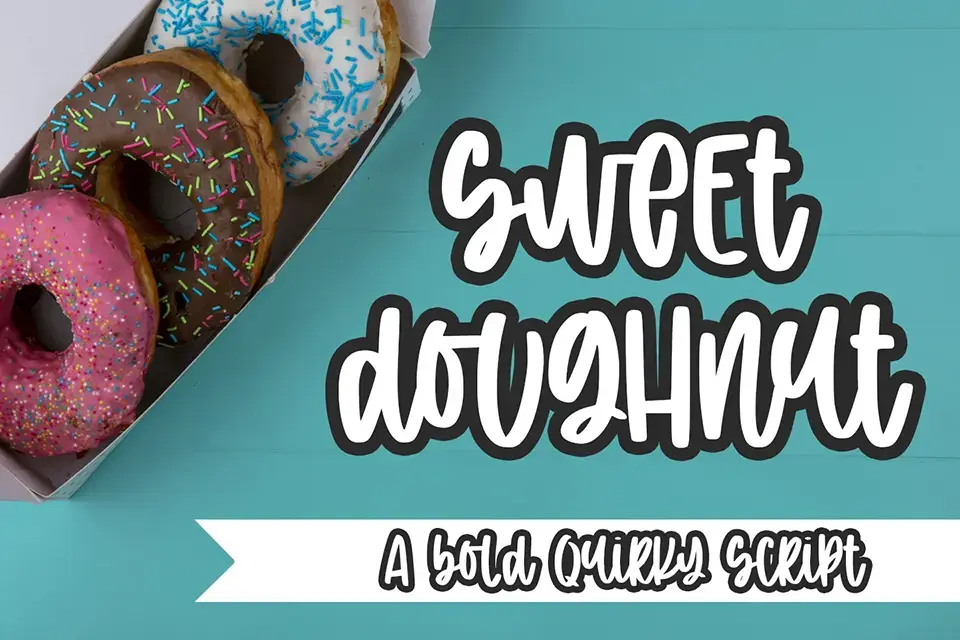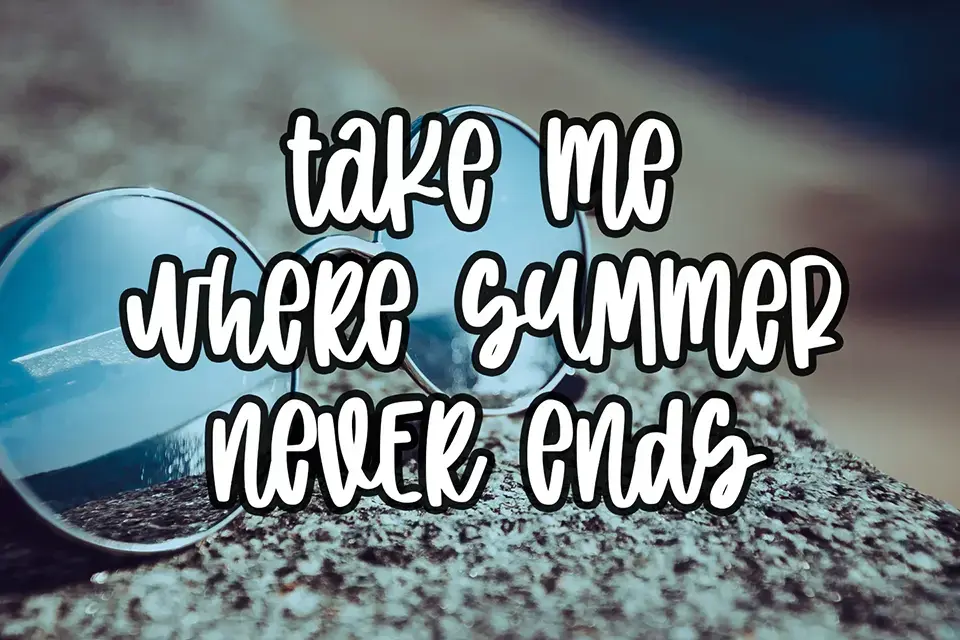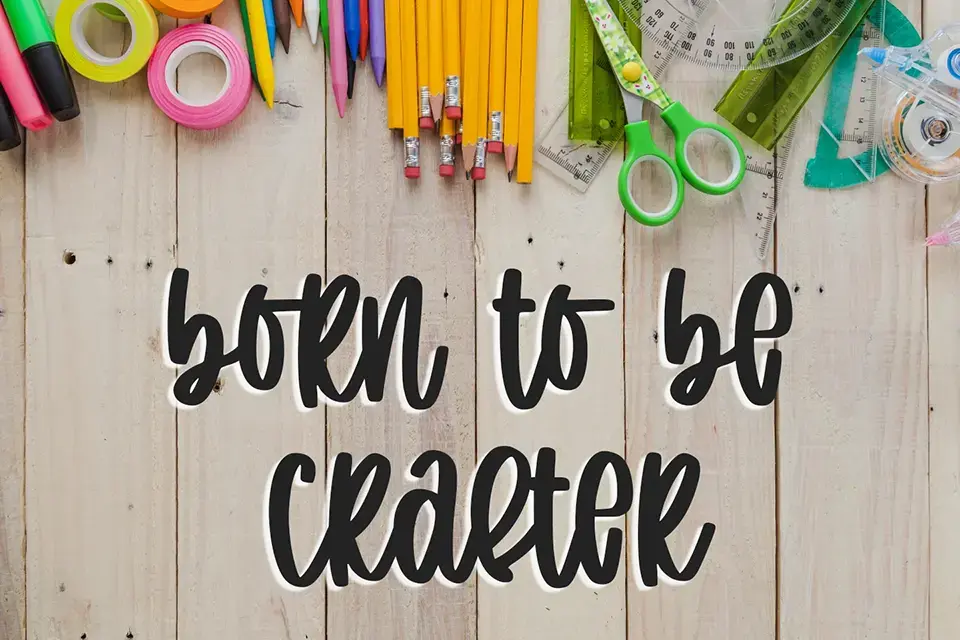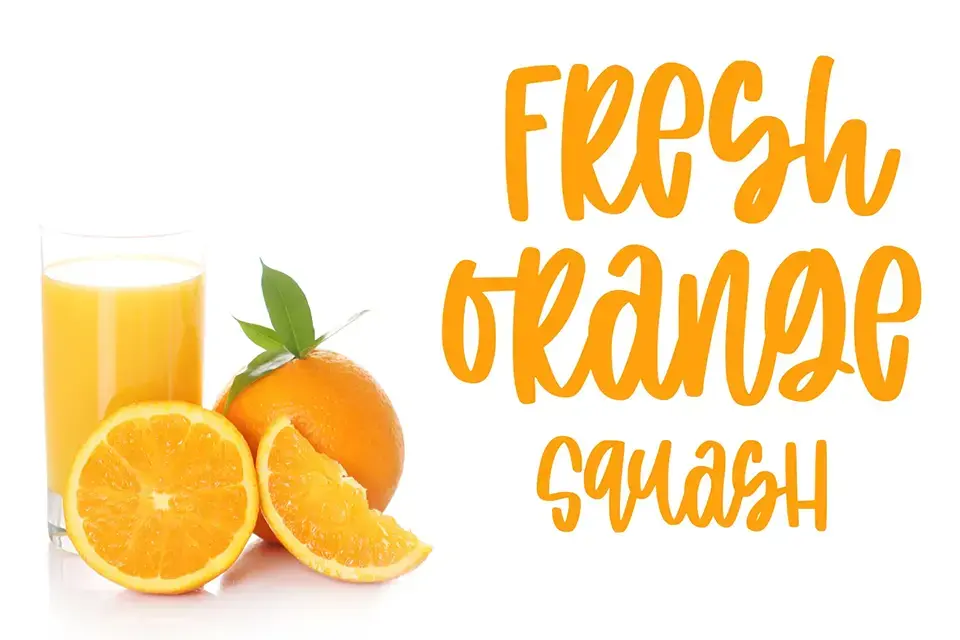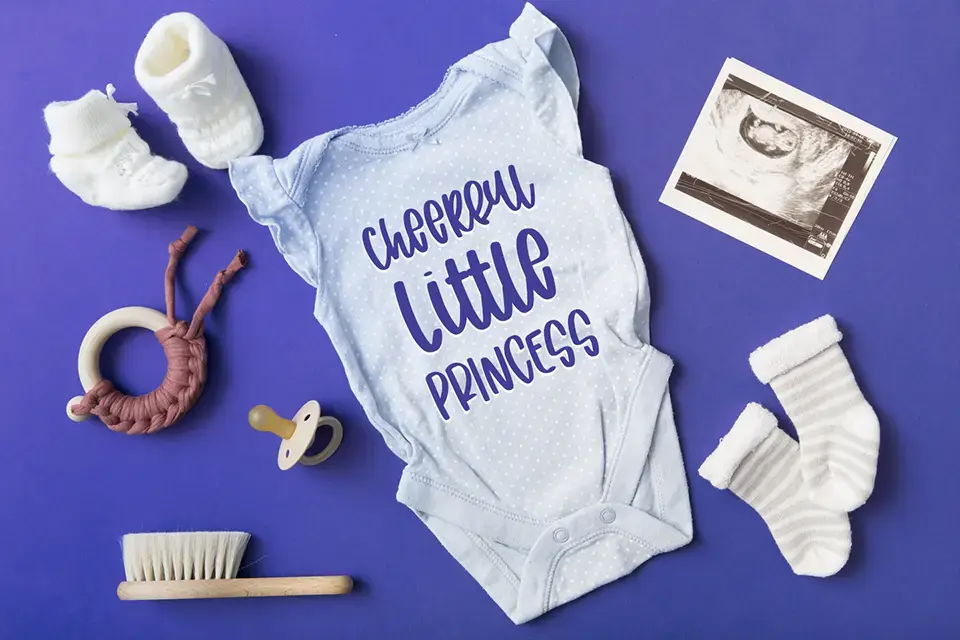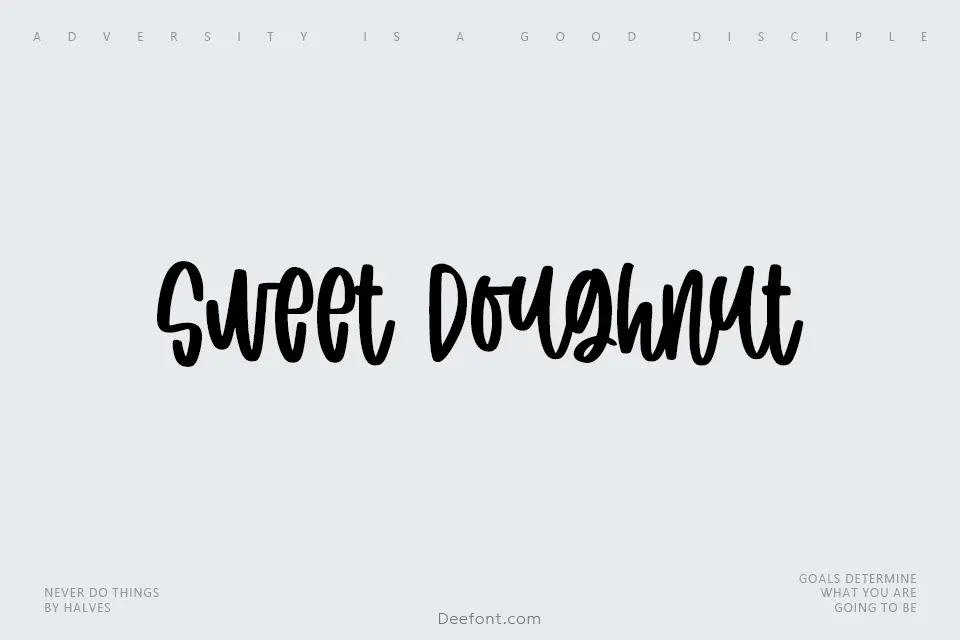
Sweet Doughnut Font
Sweet Doughnut is a bold, quirky handwritten script font that brings a playful and casual energy to any design project. With its distinctive irregular letterforms and spontaneous character, this Sweet Doughnut typeface excels at capturing attention on posters, headers, titles, and promotional materials. Its versatile style works beautifully for invitations, greeting cards, children's designs, product packaging, and branding applications where a friendly, approachable tone is desired. The font's bouncy and informal aesthetic makes it perfect for food-related brands, creative projects, and any design requiring a joyful, whimsical touch.